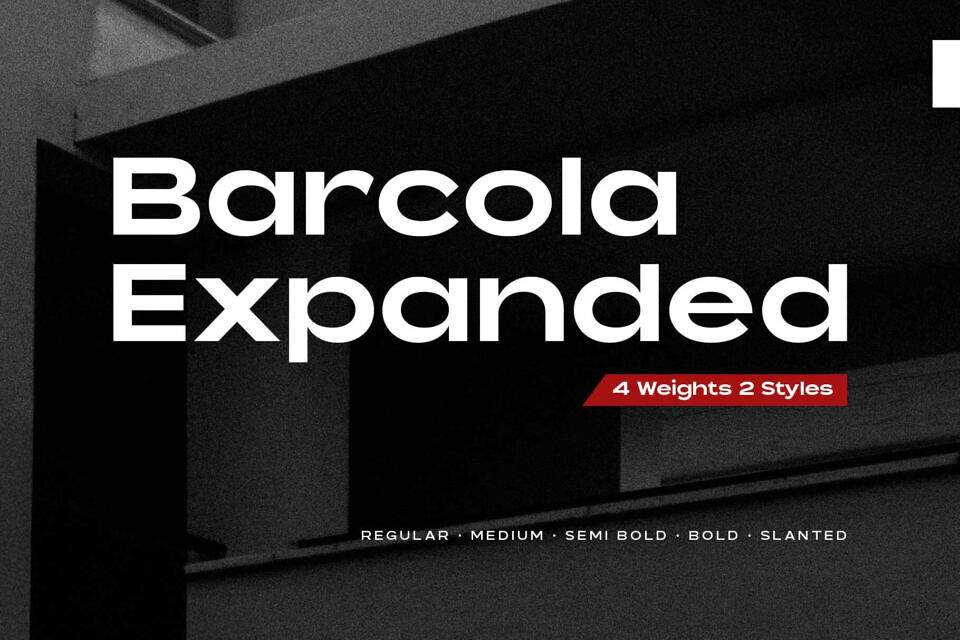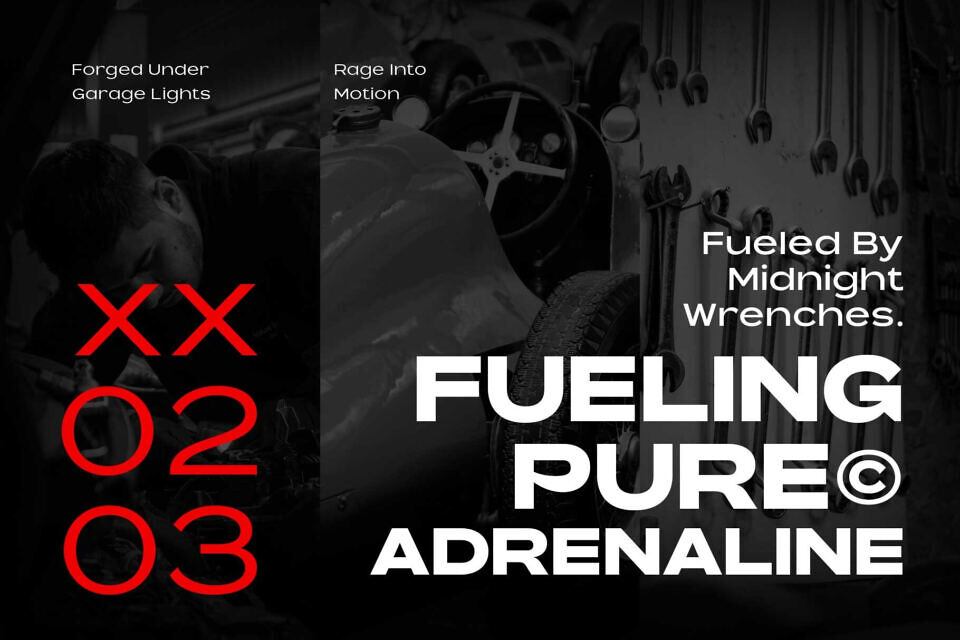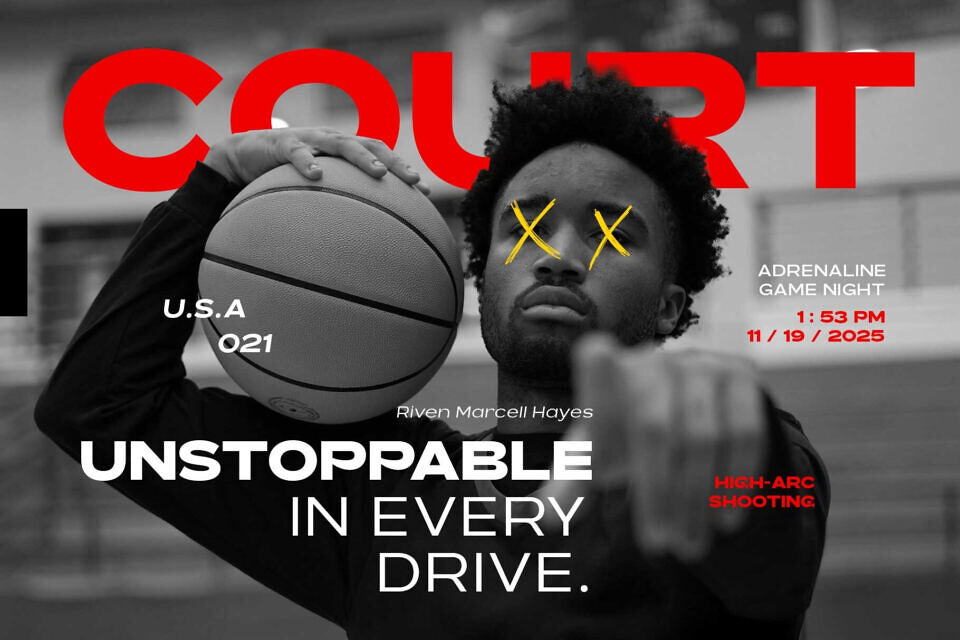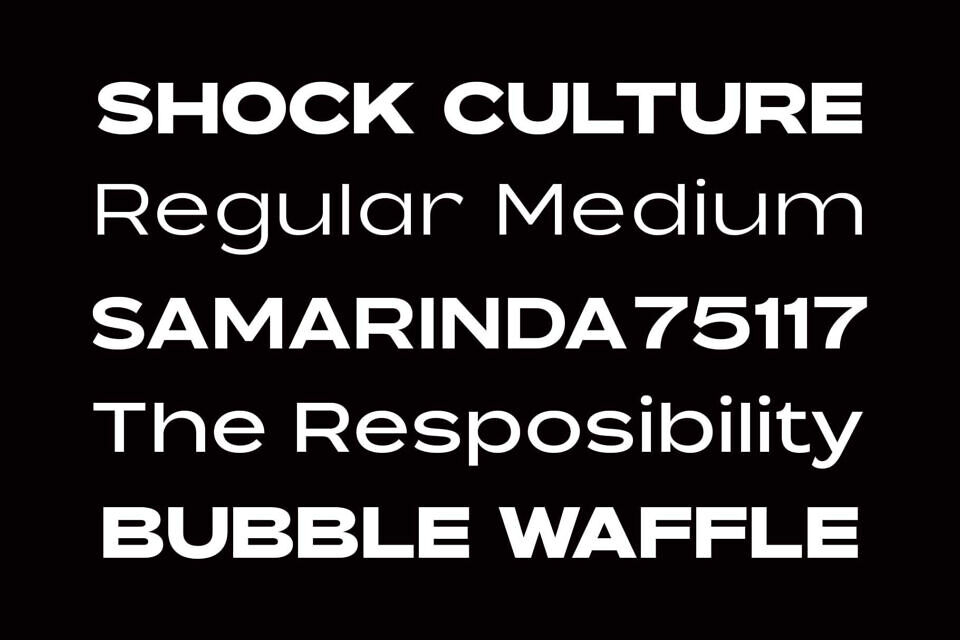
Barcola is an extended, contemporary-style font designed with unique characteristics that create impactful statements. With four weights, this font is versatile for many purposes—especially the bold weight, which delivers a strong yet minimalist impression to your design.
Barcola works well for both text and display use, and you can apply it playfully across magazines, posters, logos, websites, cards, branding, and more.